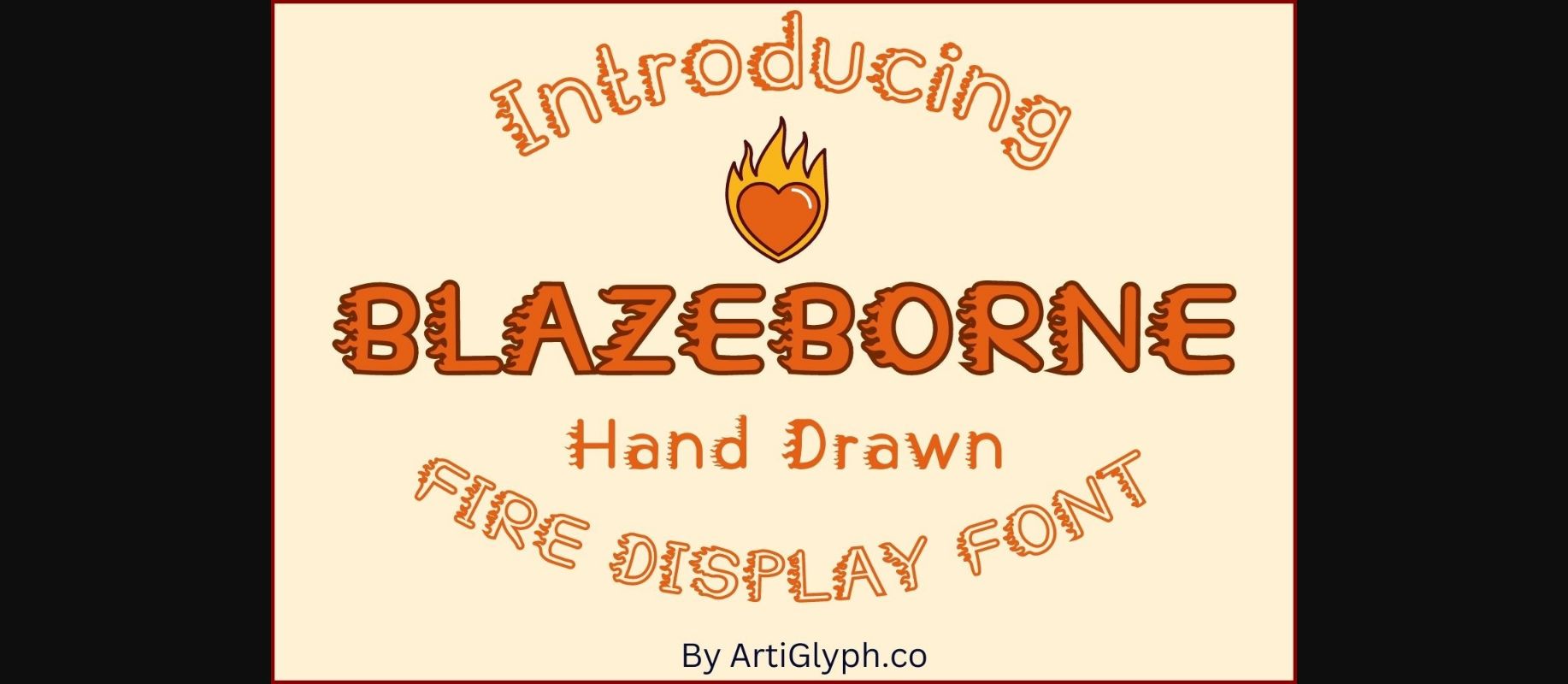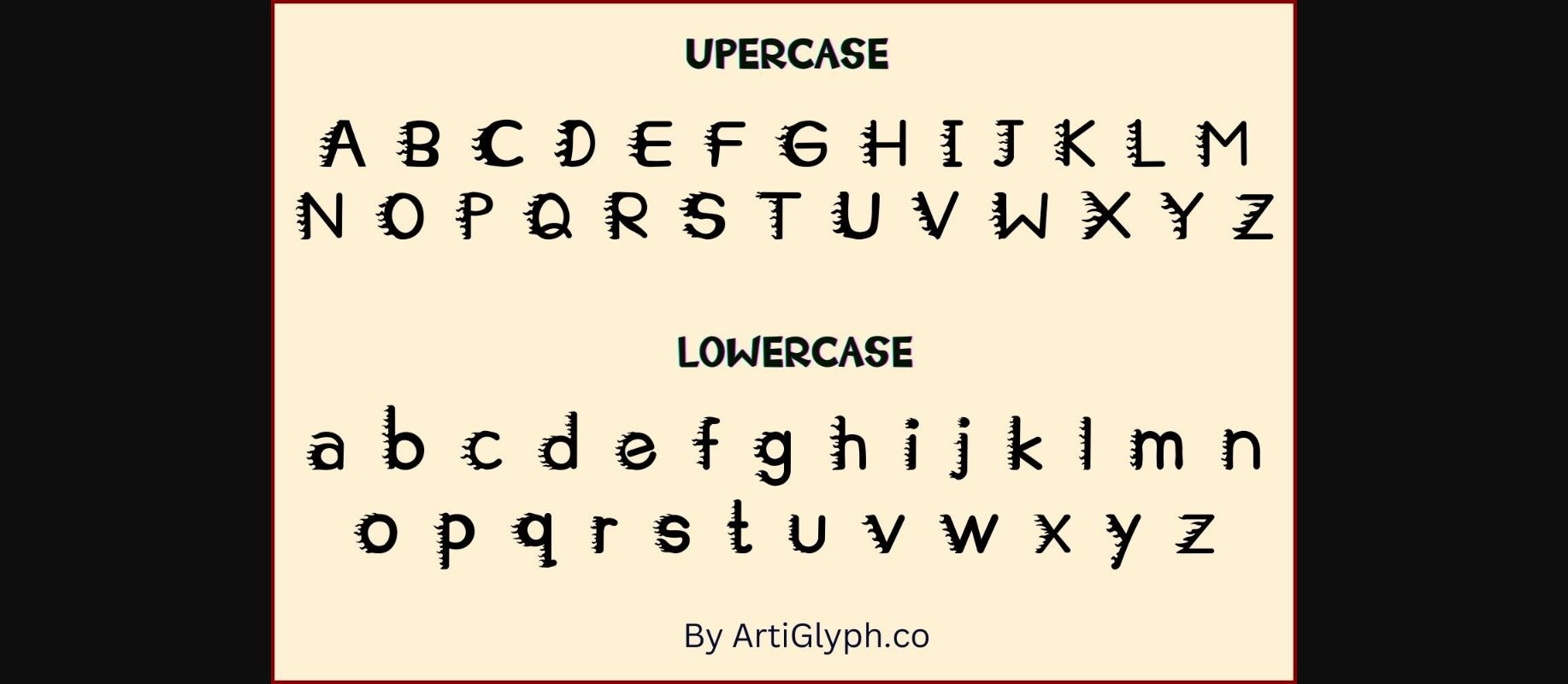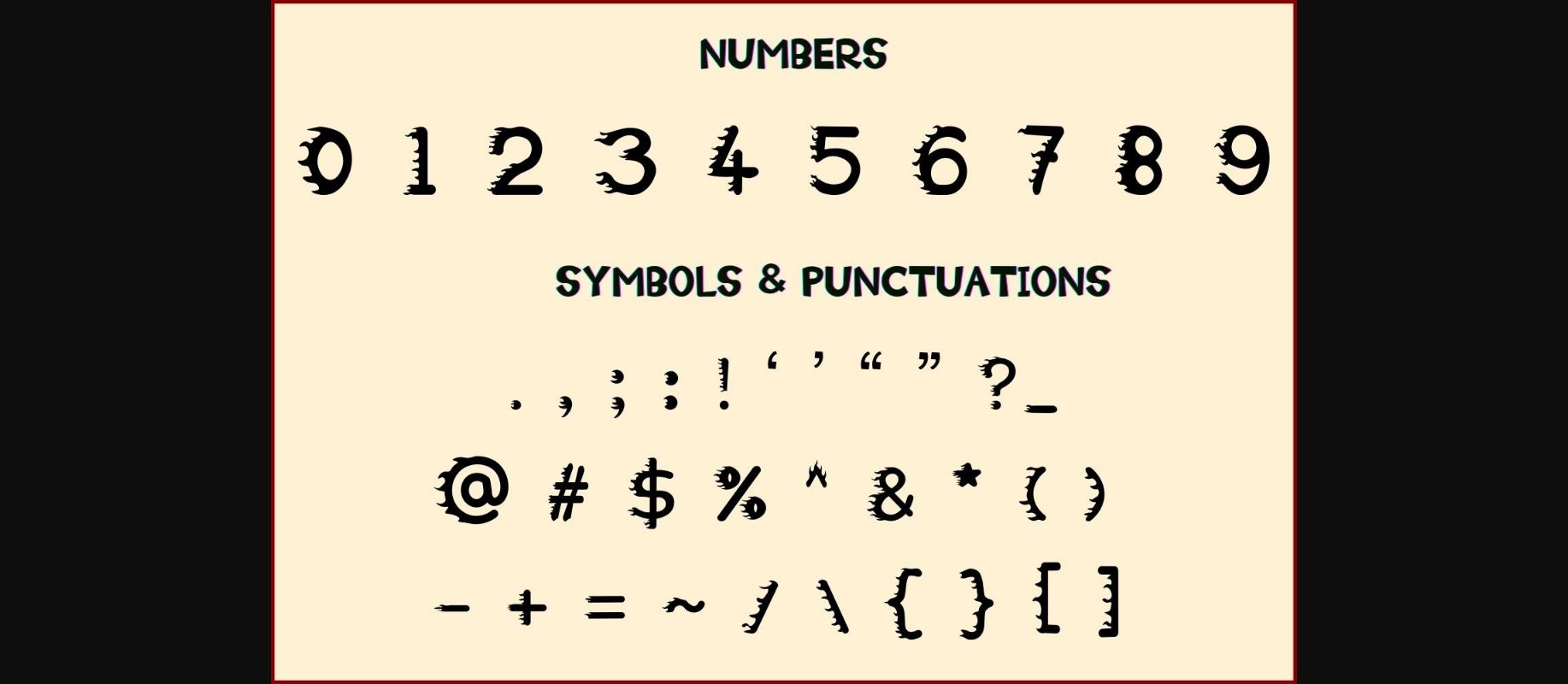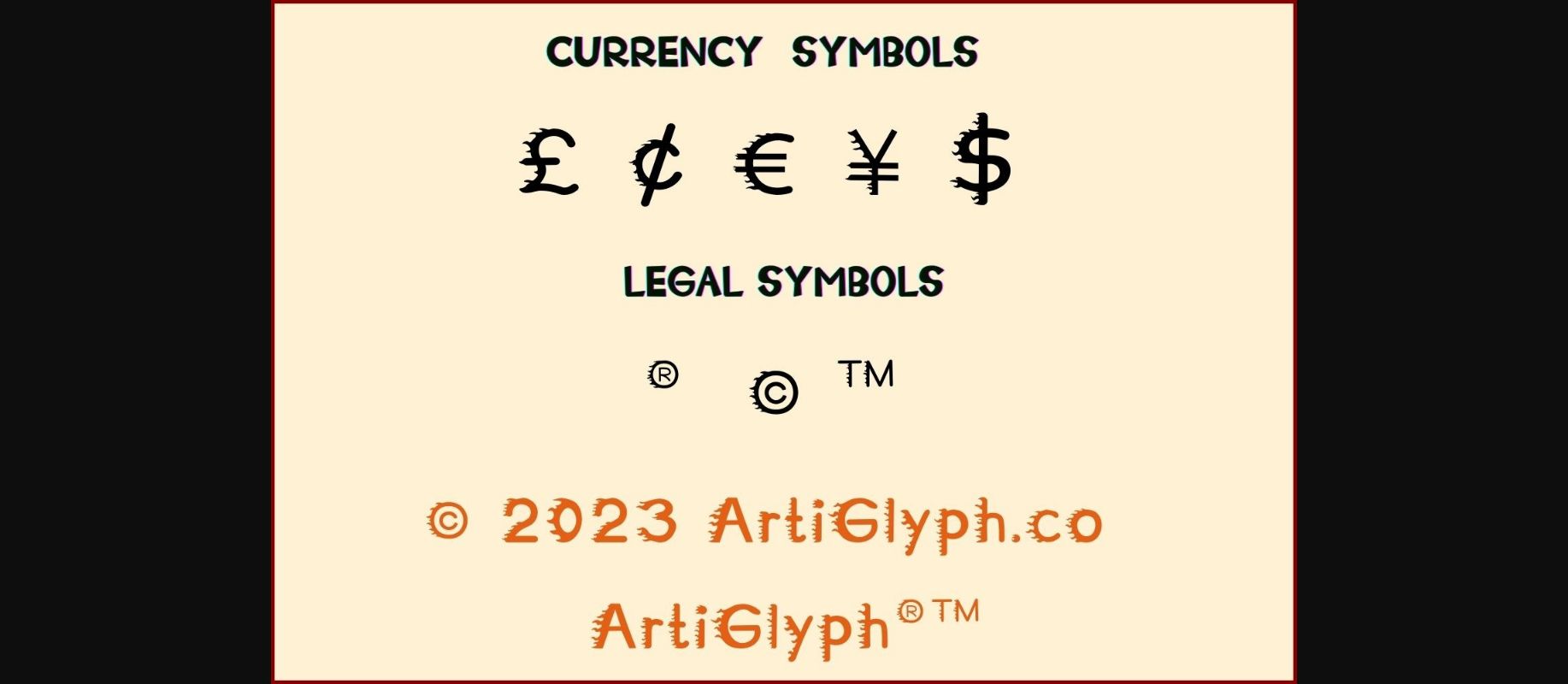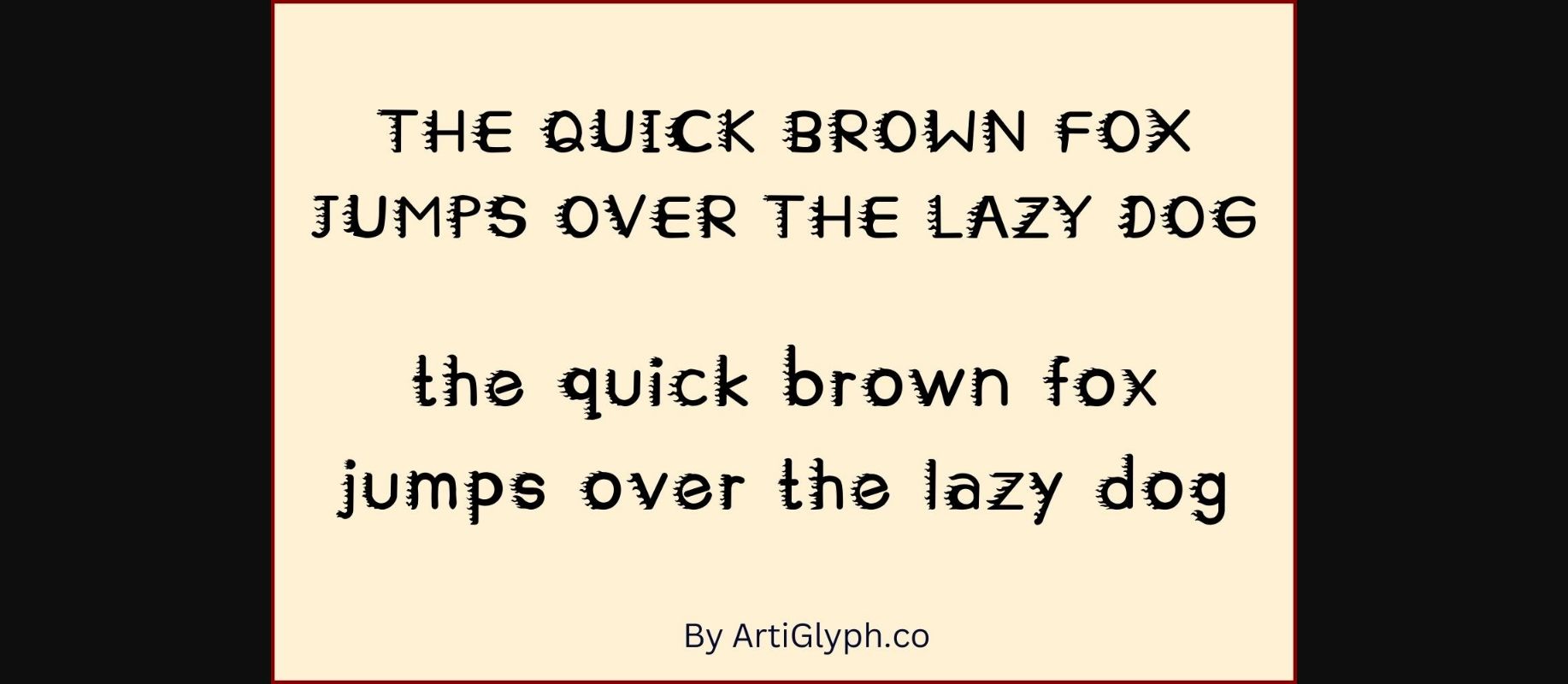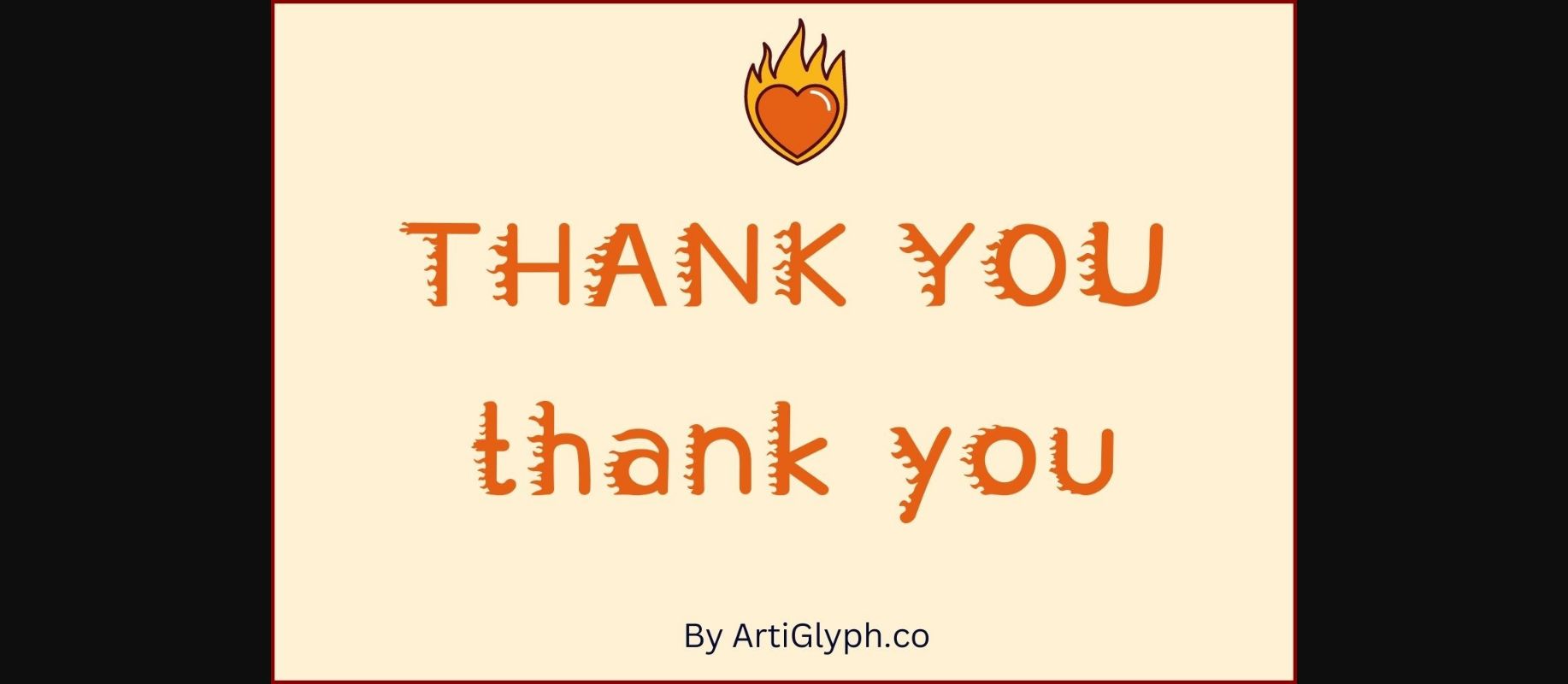
Blazeborne Fire Font
About Blazeborne Fire Font
Blazeborne is a font inspired with fire and a fun and quirky personality. Its irregular and playful letterforms create a sense of whimsy and individuality, making it perfect for designs that require a touch of uniqueness. Its natural, handwritten style adds a charming and personal feel to any project.